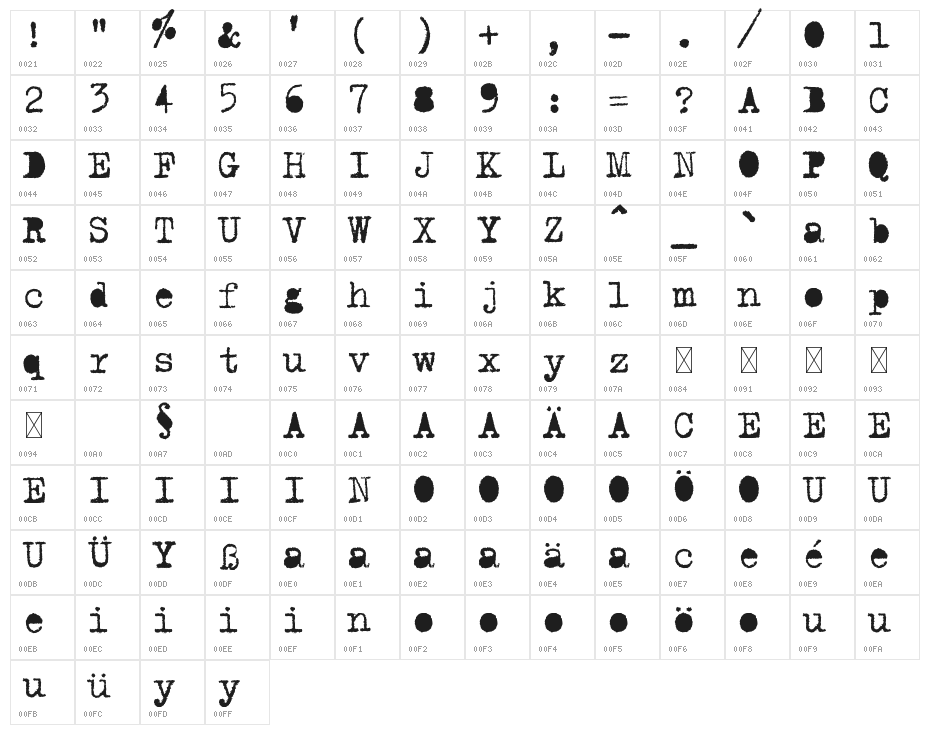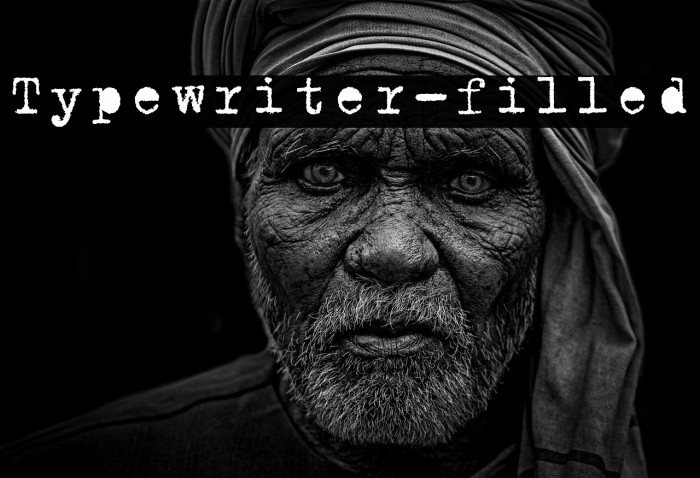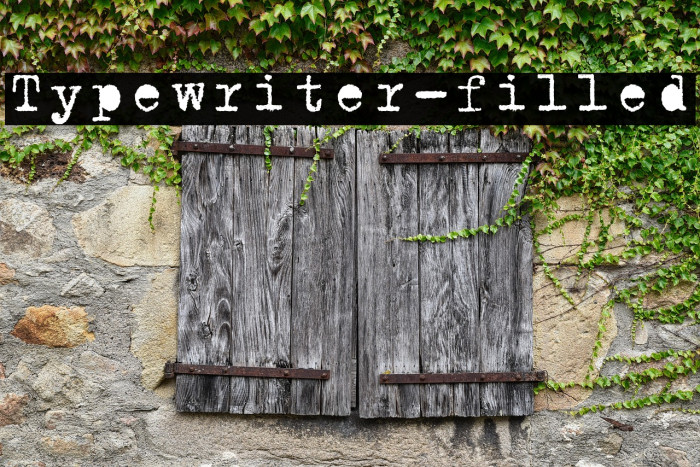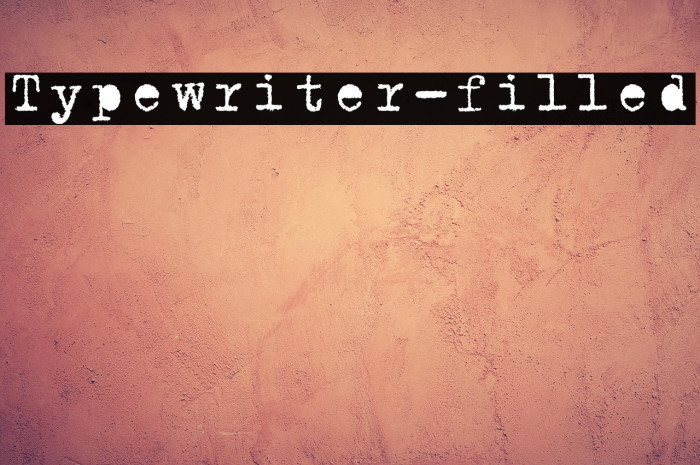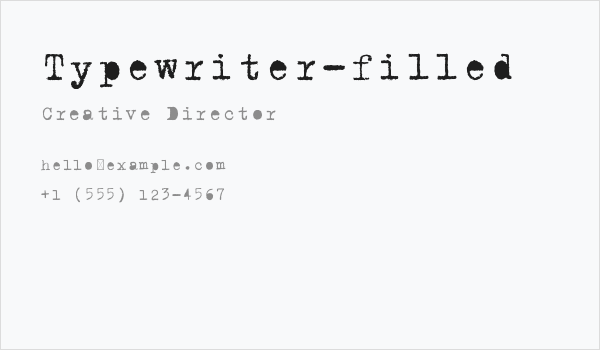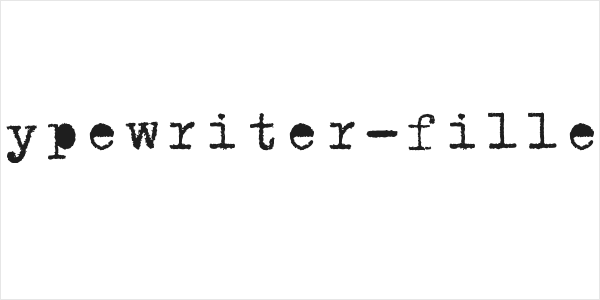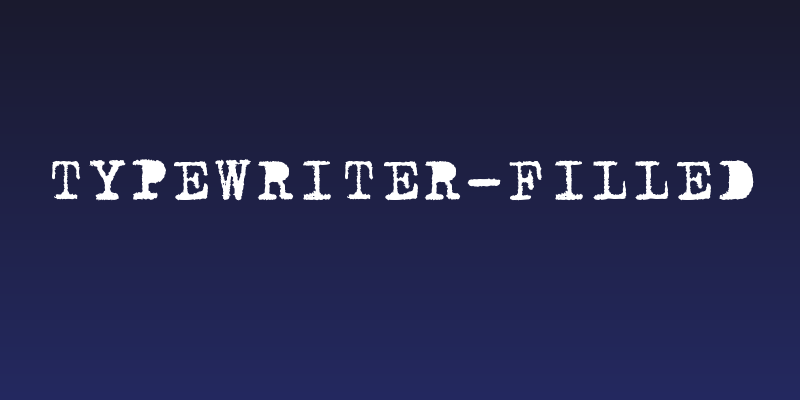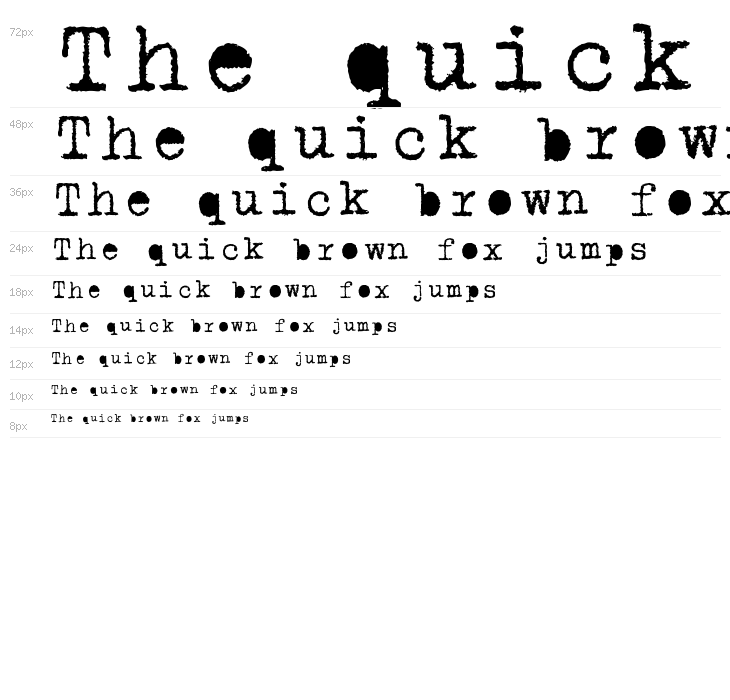
Typewriter-filled Font
Typewriter-filled Description
This font exudes a vintage, mechanical charm reminiscent of classic typewriters. Each character is distinct, with a slightly uneven, textured appearance that mimics the ink impressions of a traditional typewriter. The uppercase letters are bold and commanding, while the lowercase letters maintain a consistent style, offering a cohesive yet varied look. Numbers and special characters follow the same aesthetic, providing a complete set for diverse applications. The font's imperfections add to its authenticity, making it ideal for projects that require a retro or analog feel.
| Overall Style | Vintage |
| Use Case | Logos, Headlines, Creative writing |
| Proposed Projects | Ideal for retro-themed designs, vintage posters, typewriter-inspired branding, and creative writing projects. |